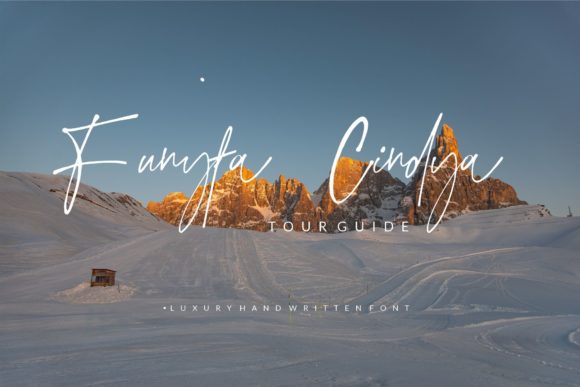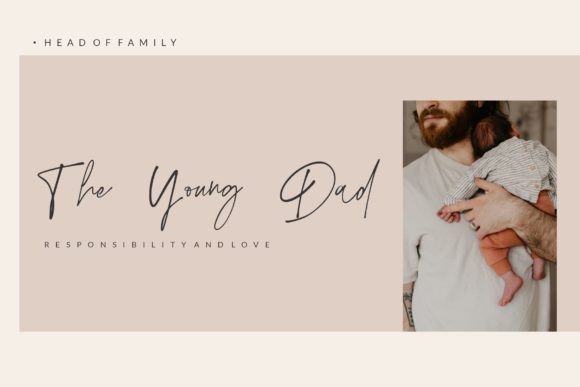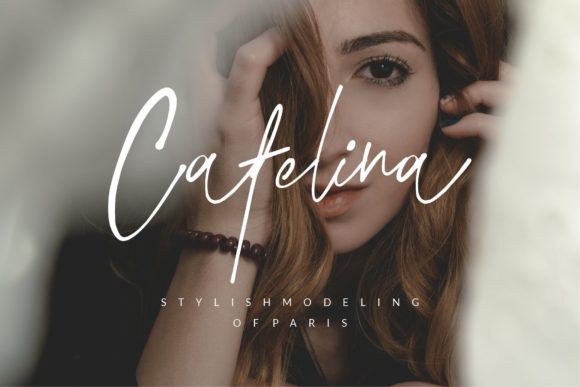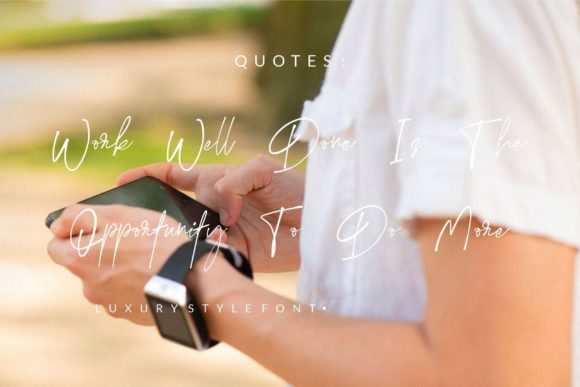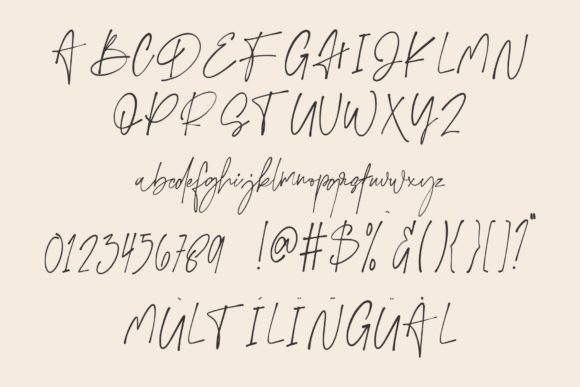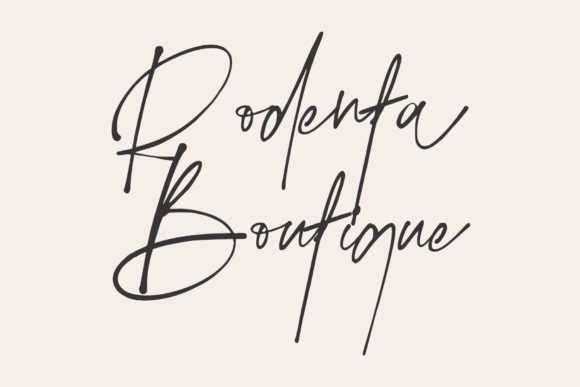
Introduction to Houdient Font
Have you ever been stuck in the middle of a creative project, searching for the perfect font to elevate your design? I’m sure we’ve all been there – scrolling through endless font options, hoping to stumble upon that one font that makes our design truly special. For designers, finding the right font can be the difference between a good design and a great one.
That’s where the Houdient Font comes in – a stunning, modern script font that’s sure to take your designs to the next level. With its high-quality, transparent background and elegant style, this font is perfect for creating beautiful wedding invitations, wedding stationery, and other design projects. And the best part? It’s available for free download, making it an invaluable resource for any designer looking to add a touch of class to their creative projects.
Key Features of Houdient Font
- Translucent background and unique design elements make it perfect for design resources
- Includes a range of font sizes and resolutions, ideal for various design applications
- Unique, hand-drawn style and intricate details make it a valuable design resource
- Perfect for use in graphic design, digital art, and other creative projects requiring a high-quality font
Honest Review: Houdient Font
I recently came across the Houdient Font, and I have to say it’s been a pleasant addition to my design resources. As a designer, I’m always on the lookout for high-quality fonts that can elevate my creative projects. The Houdient Font delivers just that.
What works well is its clean and modern design, making it perfect for a variety of design projects, from branding to digital media. I also appreciate that it’s a free download, which is always a plus. The font is also available in a transparent background option, which is super handy for designers who like to have flexibility in their designs.
- ✨ Clean and modern design
- ✨ High-quality font
- ✨ Transparent background option
However, I do have to mention that the font is limited in terms of style variations. If you’re looking for a font with a wide range of styles, you might want to look elsewhere. Additionally, the font is only available in a limited number of weights, which might not be suitable for all design projects.
Overall, I’d say the Houdient Font is a solid addition to any designer’s toolkit. It’s a great choice for designers who want a high-quality, modern font that’s easy to use and doesn’t break the bank. Just keep in mind its limitations, and you’ll be all set.
How to Use Houdient Font
The Houdient Font is a high-quality design resource that can be used for a wide range of creative projects. This free download offers a unique and stylish look that can elevate your designs to the next level.
Using Houdient Font in PowerPoint/Word
In PowerPoint and Word, you can use the Houdient Font to add a touch of style to your presentations and documents. Simply select the font from the font library and apply it to your text elements. The transparent background feature of the font allows for easy integration with other design elements.
Getting the Most Out of Houdient Font
To get the most out of the Houdient Font, use it in conjunction with other design elements, such as images and graphics. Experiment with different font sizes and colors to create a unique and eye-catching design. The free download nature of the font makes it an ideal resource for designers on a budget.
The Houdient Font is ideal for a wide range of design projects, including logos, branding materials, and marketing materials. Its unique and stylish design makes it perfect for creative projects that require a touch of sophistication and elegance.